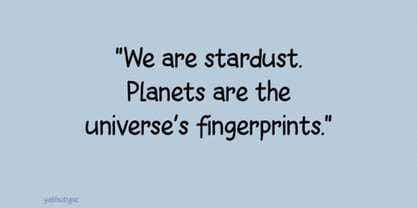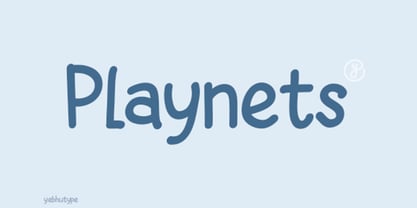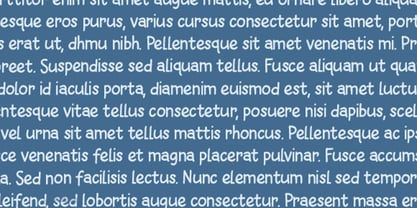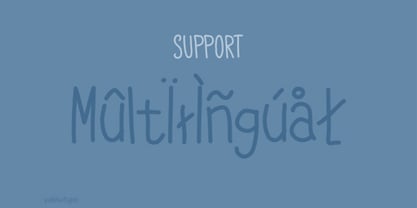
Playnets Font: The Playful Imagination Typeface
Introducing Playnets , a lively and whimsical typeface designed to spark joy, creativity, and wonder in every character. Inspired by the boundless imagination of childhood and the playful spirit of adventure, Playnets is more than a font—it’s a gateway to storytelling, learning, and fun. With its cheerful curves, bouncy rhythm, and friendly design, this typeface is perfect for projects that aim to captivate young hearts and minds while resonating with the young at heart.
The Essence of Playnets Font
Playnets embodies the magic of childhood—a world where curiosity rules and every moment is an opportunity for discovery. Its design blends playful spontaneity with thoughtful readability, making it ideal for creating content that feels both inviting and engaging. Whether you’re designing for kids’ apps, educational tools, or playful branding, Playnets adds a dash of joy and a sprinkle of creativity to every project.
Key Features:
Whimsical Design Elements:
Rounded edges, bouncy baseline shifts, and quirky character variations mimic the irregular charm of children’s handwriting. Each letter feels alive, as if doodled by a playful child with crayons.
Child-Friendly Readability:
Optimized for legibility, Playnets ensures clarity even at smaller sizes. Its balanced spacing and softened corners make it perfect for early readers and visual learners.
Vibrant Multilingual Support:
Supports Latin scripts and extended language sets, including accents and diacritics for global use. From English storybooks to bilingual educational materials, Playnets keeps the fun universal.
Color-Friendly Flexibility:
Designed to pair seamlessly with bright palettes and bold illustrations. Use it for rainbow-themed designs, pastel nursery decor, or high-contrast cartoons—it pops in any hue!
Digital & Print Harmony:
Crisp on screens (apps, e-books, games) and charming in print (posters, worksheets, party invites). Playnets maintains its playful energy across all mediums.
Mood & Personality:
Playnets radiates cheerful exuberance and lighthearted mischief. It’s the typographic equivalent of a giggling child building a blanket fort or a classroom filled with colorful art projects. Think of storybook adventures, toy box treasures, and the sticky-fingered joy of a popsicle on a summer day.
Ideal Use Cases:
Children’s Books & Apps:
Bring stories to life with a font that feels like a friend. Perfect for picture books, interactive e-books, and educational games that inspire learning through play.
Toy Packaging & Branding:
Create eye-catching designs for toys, games, and kids’ products. Playnets adds a playful touch that appeals to both kids and parents.
Educational Materials:
Worksheets, flashcards, and classroom posters become more engaging with Playnets ’ friendly vibe. Ideal for making learning feel like an adventure.
Birthday Parties & Celebrations:
Design invitations, banners, and party favors that burst with energy. Playnets turns every celebration into a whimsical event.
Kids’ Fashion & Merchandise:
From t-shirts to lunchboxes, Playnets adds a youthful, trendy flair to children’s products.
Why Choose Playnets Font?
In a world where capturing a child’s attention is both an art and a science, Playnets delivers the perfect blend of fun and functionality. It’s not just a font—it’s a tool for creators who want to inspire imagination, foster creativity, and make learning feel like play. Whether you’re designing a preschool app or a global kids’ brand, Playnets ensures your message resonates with warmth and authenticity.
Let Your Creativity Run Wild
With Playnets , every letter is an invitation to explore, laugh, and dream. Perfect for projects that demand both playfulness and professionalism, this font helps you create content that kids (and grown-ups) will adore.